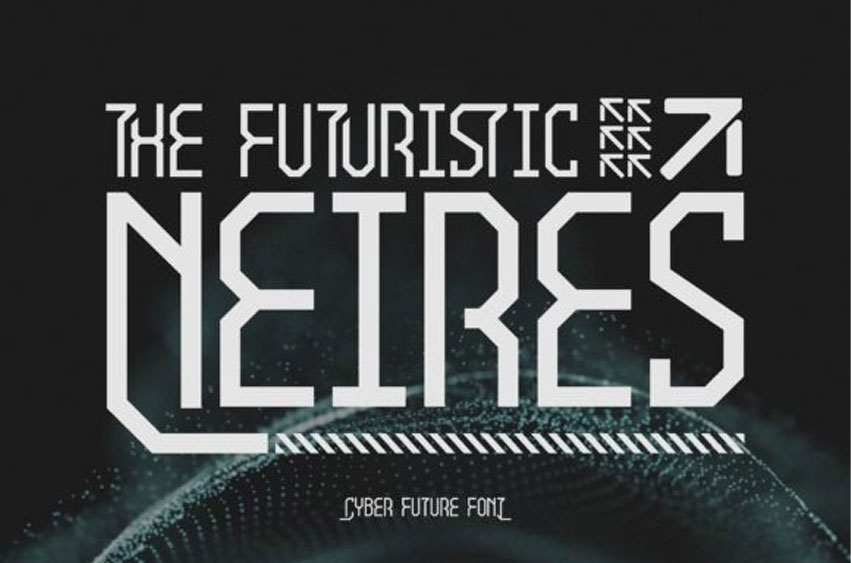
Neires Font
Neires Font is a futuristic font that looks sleek and high-tech. Its clean lines and modern design make it perfect for digital and sci-fi themes.
The letters are sharp and clear, giving a sense of innovation and advanced technology.